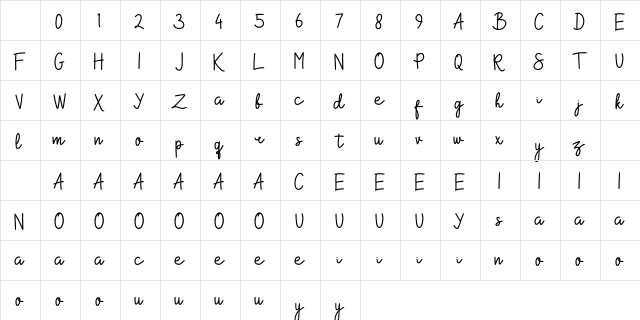
Complete Shakila Yasmin Regular glyph index. Displaying only characters natively supported by Shakila Yasmin Regular font.
Shakila Yasmin is a composed and adaptable typeface that performs quietly and consistently across a wide range of design contexts.